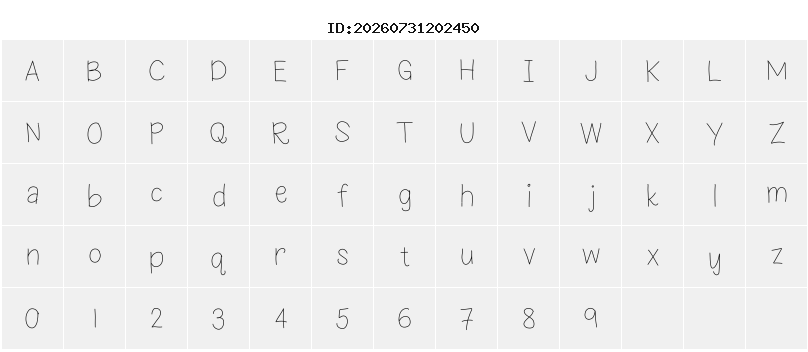
Leaning on Everlasting Arms Preview
• Font Name: Leaning on Everlasting Arms
• Full Font Name: Leaning on Everlasting Arms
About Leaning on Everlasting Arms.ttf
Leaning on Everlasting Arms.ttf is a modern, elegant sans-serif font designed for ultimate readability and visual harmony. Perfect for branding, headlines, web design, and print materials.